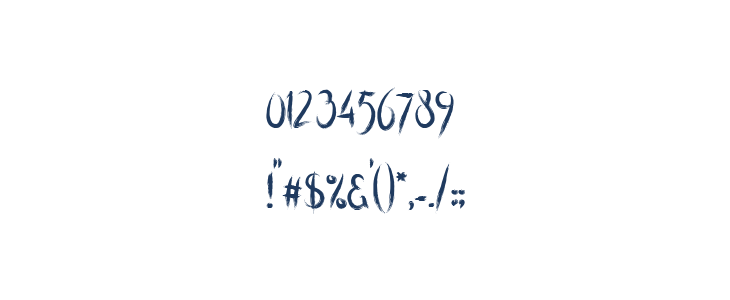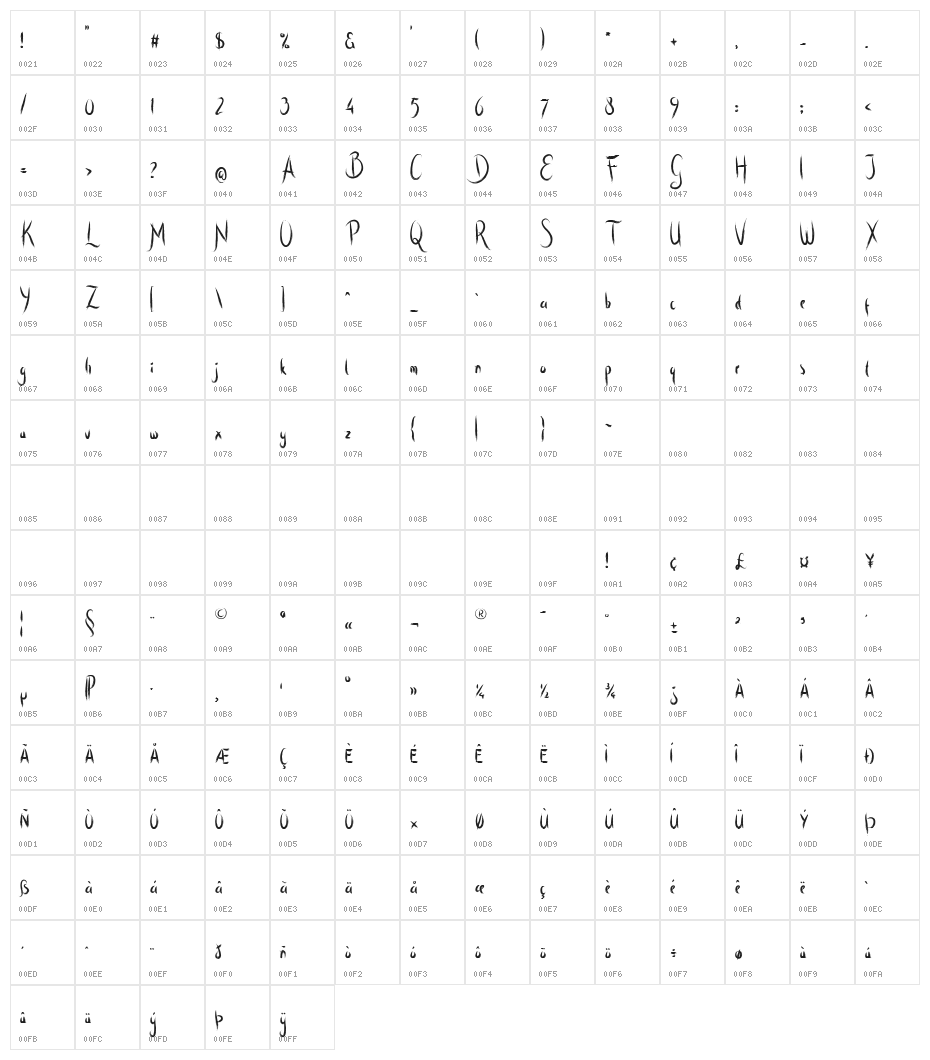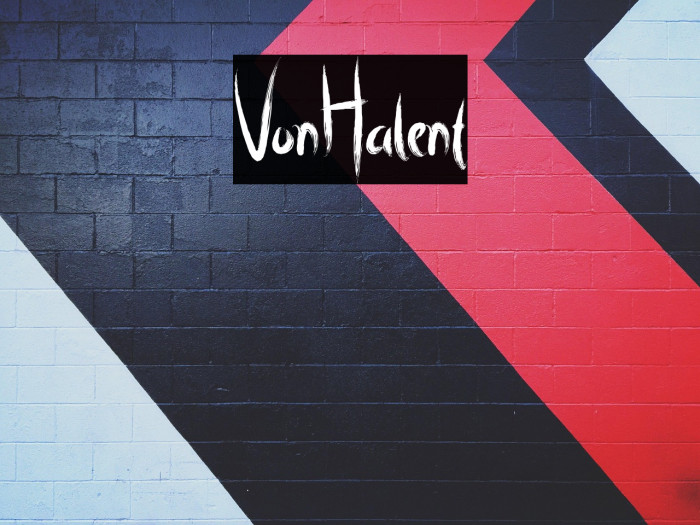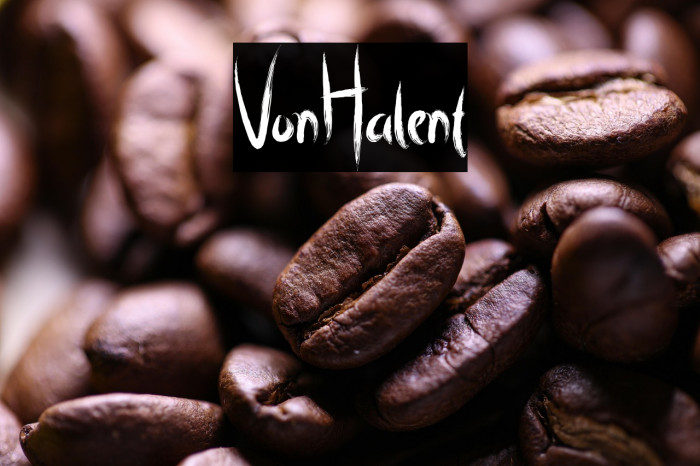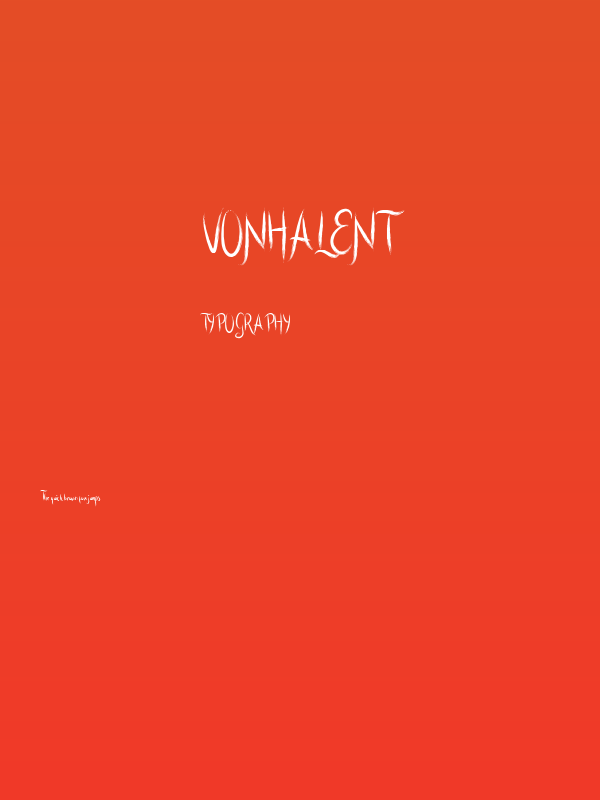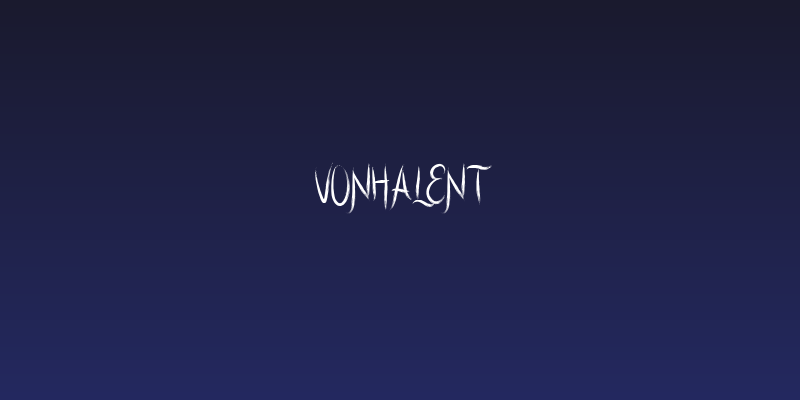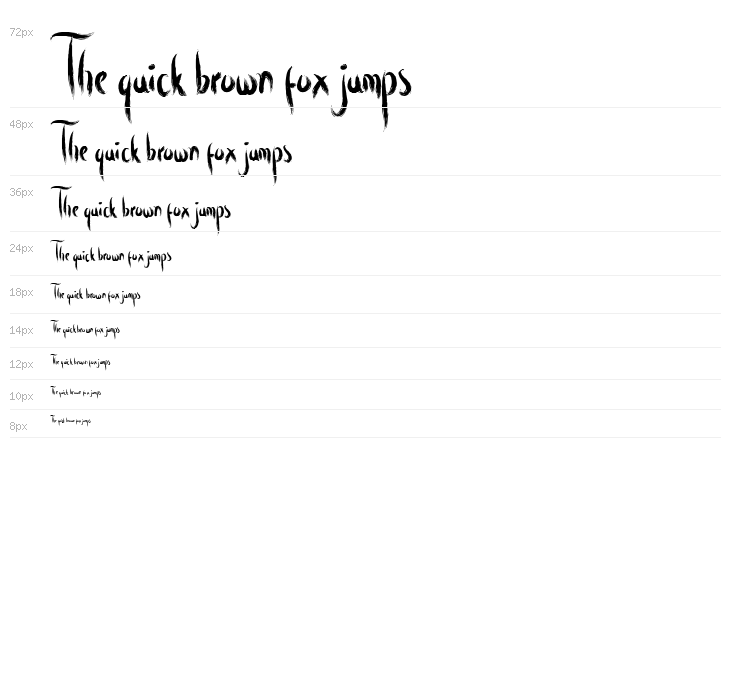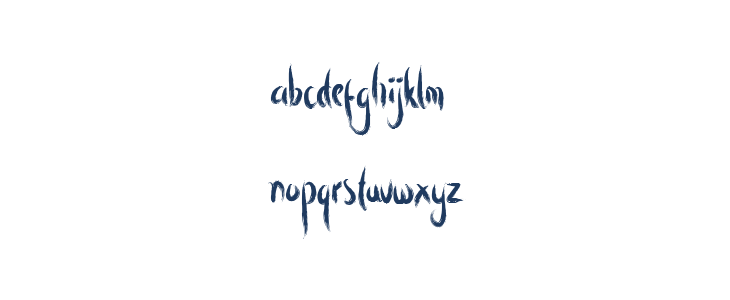
VonHalent Font
VonHalent Description
This font features a dynamic and expressive style, characterized by its brush-like strokes and fluid motion. The letters have a hand-painted appearance, with varying thicknesses that create a sense of movement and energy. The uppercase letters are bold and commanding, while the lowercase letters maintain a consistent flow, enhancing readability. Numbers and special characters follow the same artistic style, ensuring a cohesive look across all text elements. The overall design is both artistic and modern, making it suitable for creative projects.
| Overall Style | Modern, Artistic |
| Proposed Projects | Ideal for creative projects such as posters, art prints, branding, and packaging design where a bold, artistic statement is desired. |